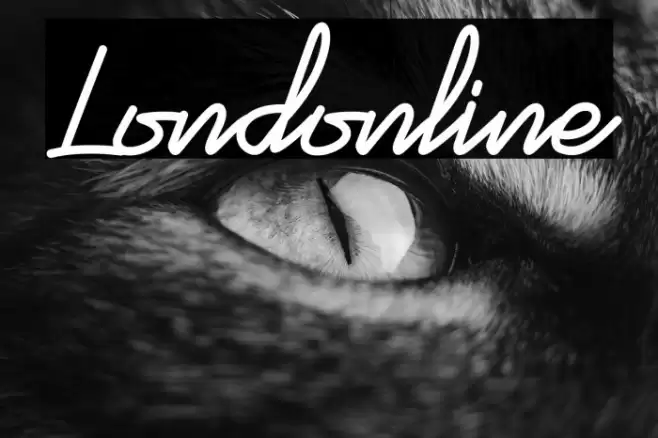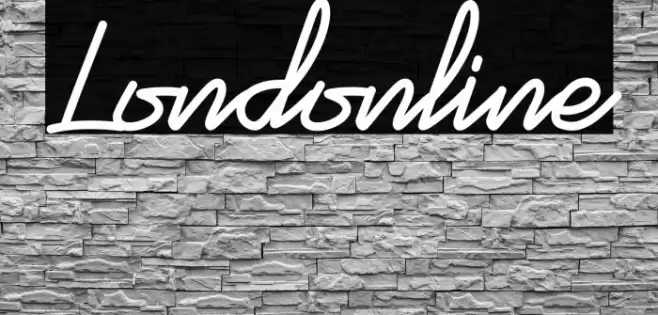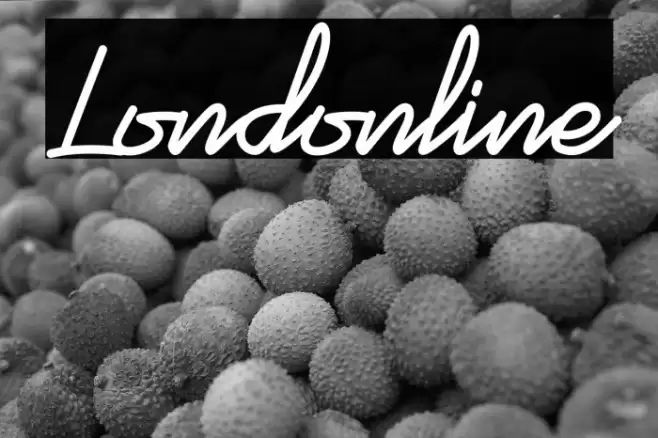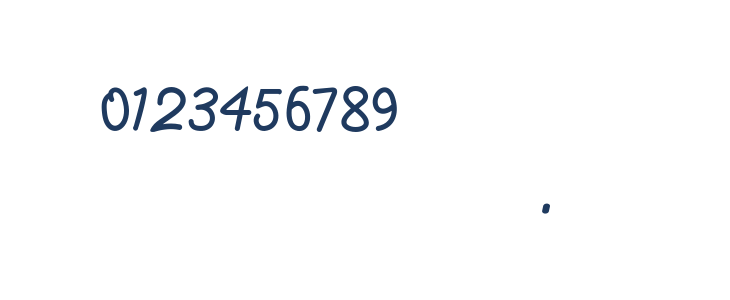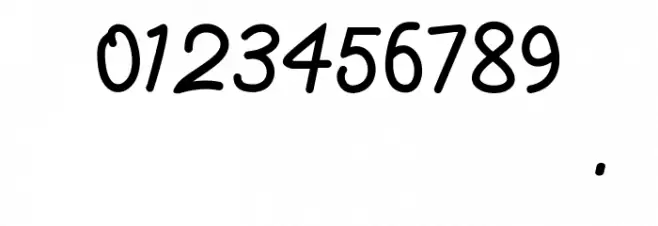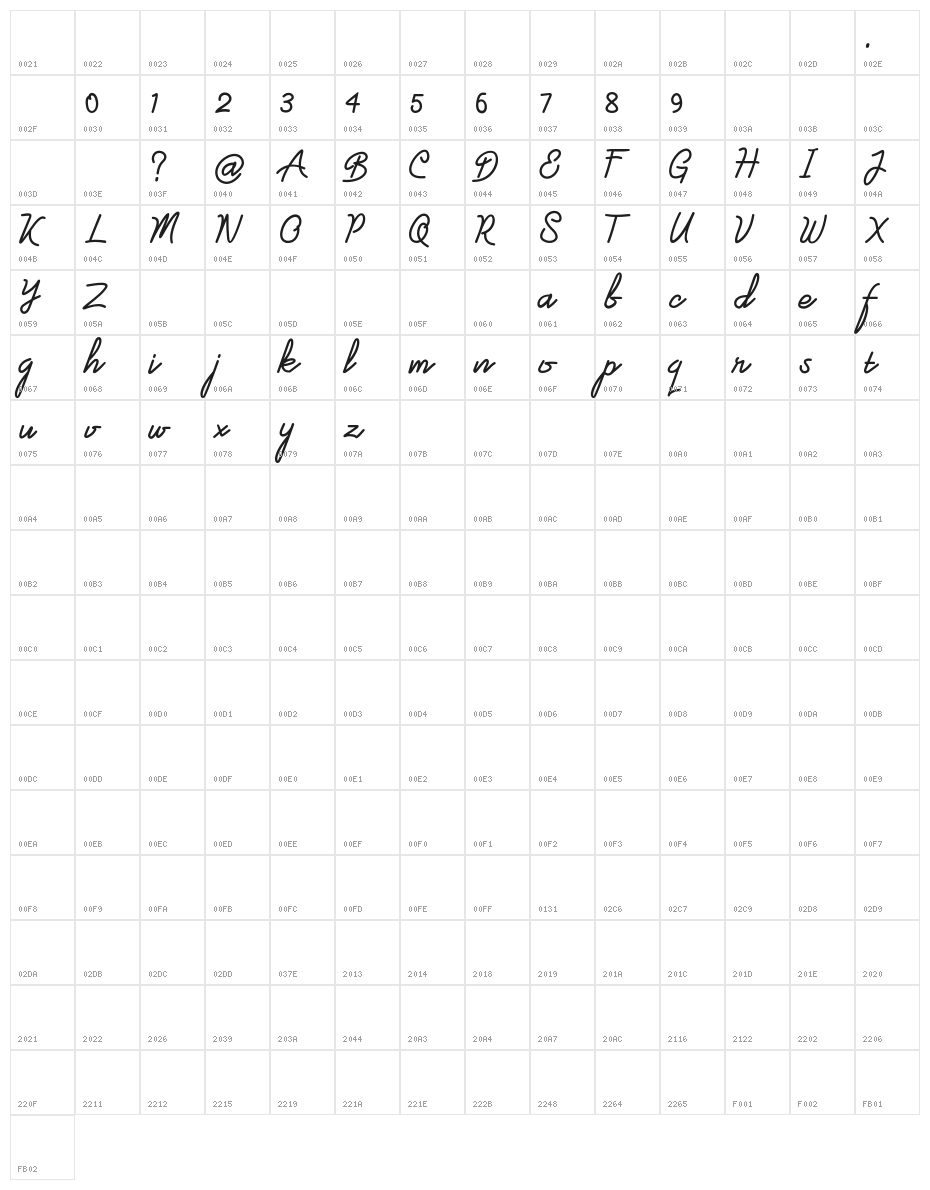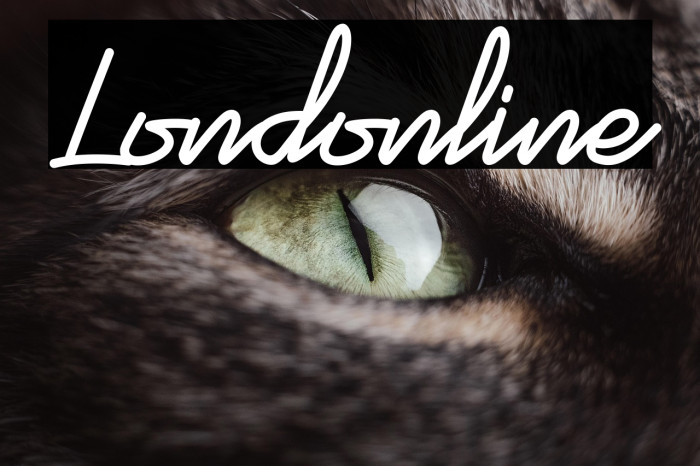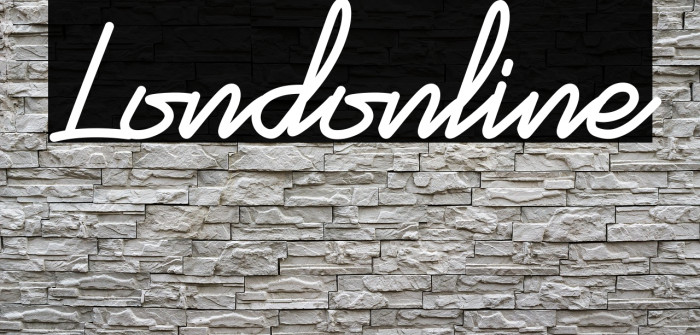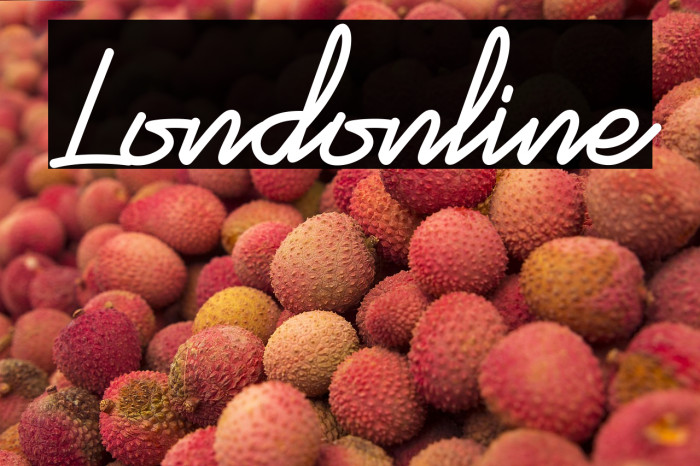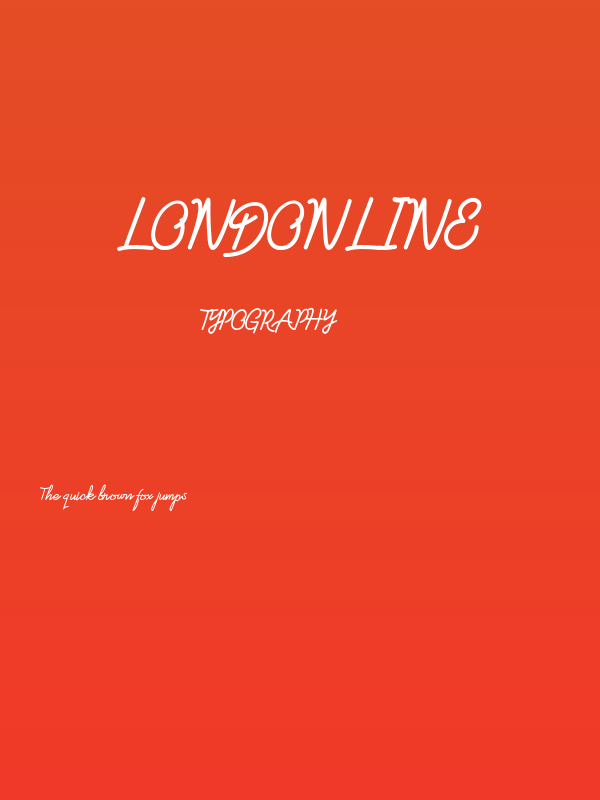
Londonline Font
Londonline Description
This font features a dynamic and flowing script style, characterized by its elegant and cursive letterforms. The uppercase letters exhibit a graceful, sweeping motion, while the lowercase letters maintain a consistent, fluid connection, enhancing readability. The numerals are bold and slightly slanted, complementing the overall cursive aesthetic. The font's design is reminiscent of traditional calligraphy, yet it maintains a modern touch with its smooth curves and balanced proportions. The characters are well-spaced, ensuring clarity and legibility, making it suitable for various design applications.
A dynamic, flowing script font with elegant cursive letterforms and modern calligraphic style from Uncategorized fonts.